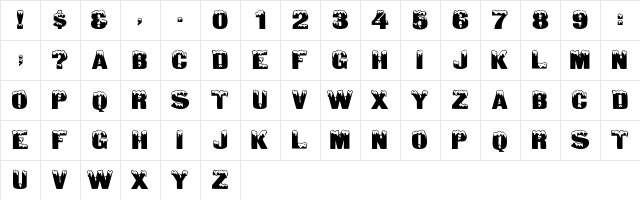
IglooCaps Wd Regular Free Font
IglooCaps Wd Regular
Design Context for IglooCaps Wd
IglooCaps Wd is a composed and adaptable typeface that performs quietly and consistently across a wide range of design contexts.